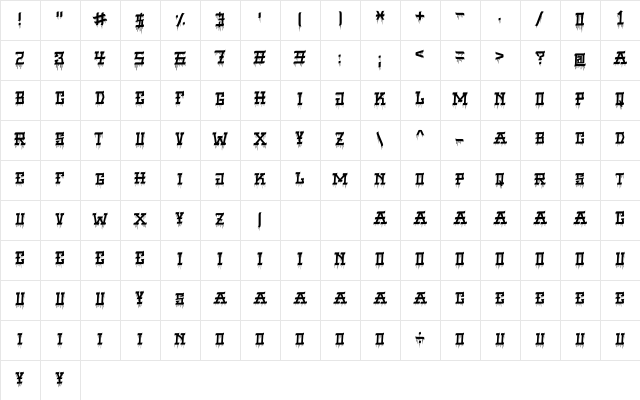
VIRGIL BLACK Driping Regular
| Foundry | High Up North LLC |
| Designer | High Up North |
Design Context for VIRGIL BLACK Driping Typeface
VIRGIL BLACK Driping is a composed and adaptable typeface that performs quietly and consistently across a wide range of design contexts.